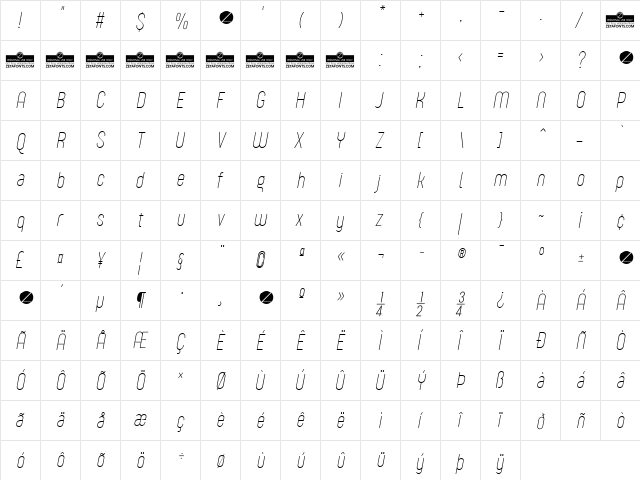
Sugo Pro Display Trial Thin Italic Font Preview
Design Context for Sugo Pro Display Trial Typeface
Sugo Pro Display Trial is built around its visual character rather than neutral utility — its distinctive forms are designed to make an impression at display sizes. The dynamic lean of this cut emphasises speed and emphasis in any layout. Its slender proportions lend an understated elegance to any composition.
Font Pairing: Pair with a clean neutral sans-serif for body copy to let Sugo Pro Display Trial's character lead without overwhelming the composition.
Pro Tip: Use Sugo Pro Display Trial exclusively at display sizes — it was designed to be seen, not read at length. Let a neutral companion handle body copy.